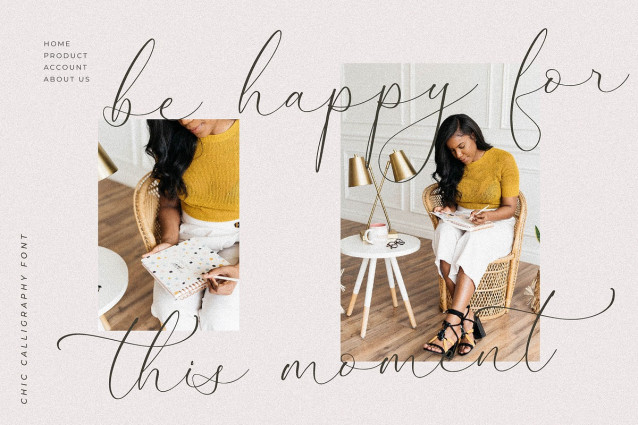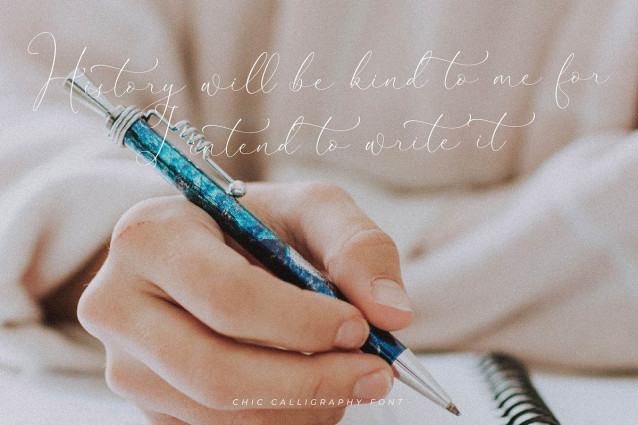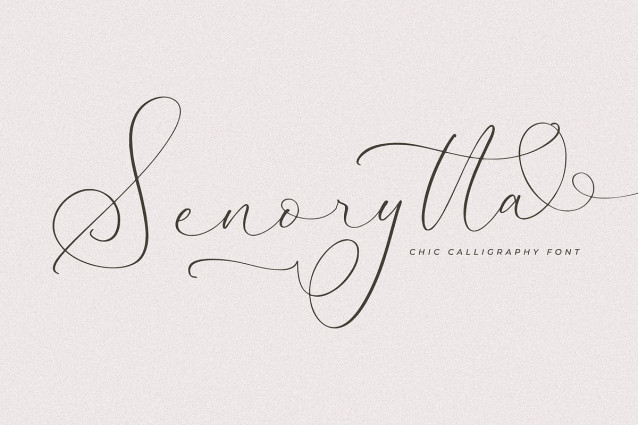
Senorytta Script Font
Senorytta Script Font, created by Storytype, A serif modern and classic typeface that has own unique style & modern look. This typeface is perfect for an elegant & luxury logo, book or movie title design, fashion brand, magazine, clothes, lettering, quotes, and so much more.